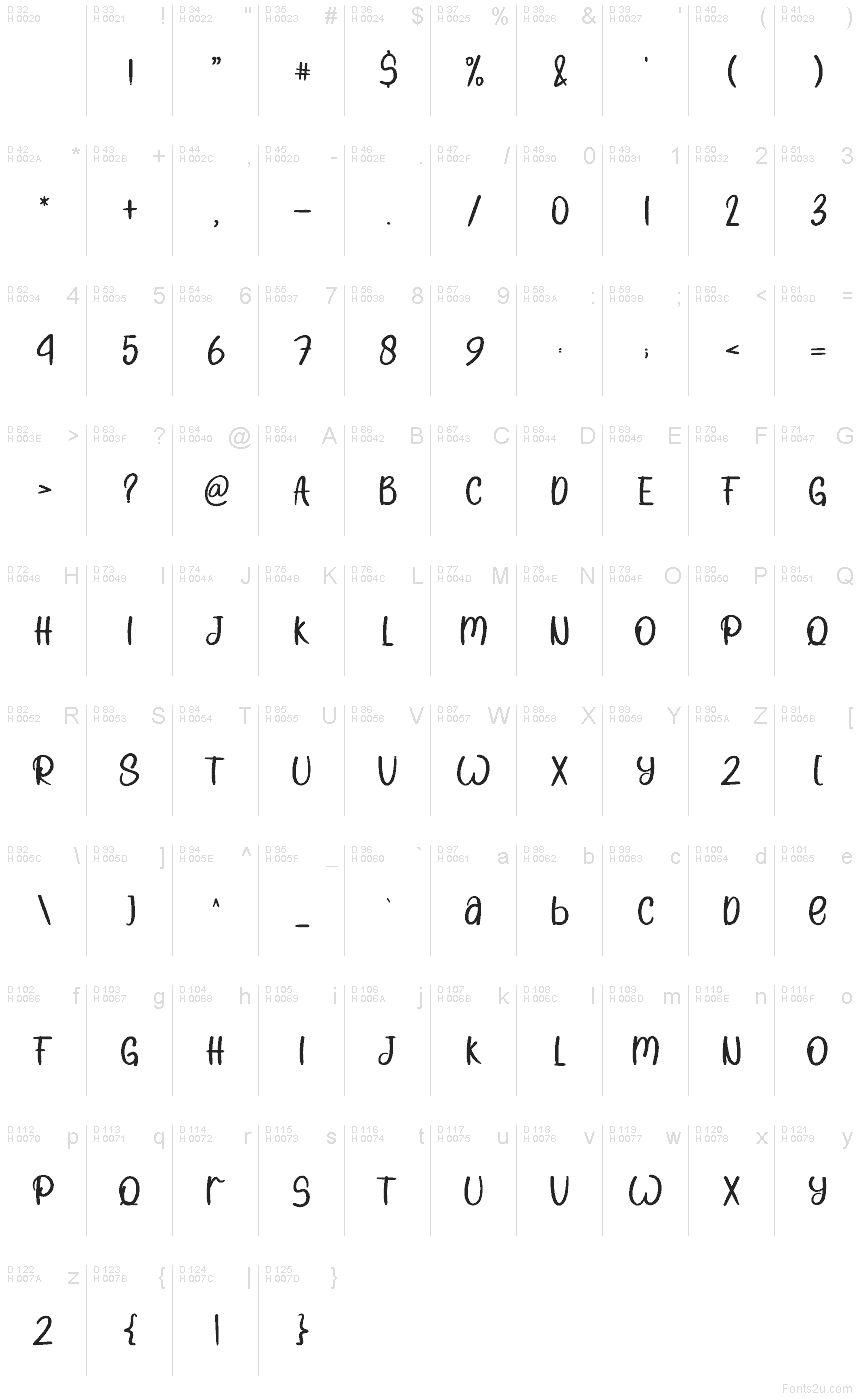
Simple Home
Simple Home, designed by Etik Fatimah, is a semi-light handwritten font that exudes a natural and effortless charm. With its casual yet elegant aesthetic, it strikes a balance between readable simplicity and artistic flair. Each stroke in Simple Home suggests a personal touch, reminiscent of a quick note from a dear friend or an inscription in a cherished book.
This font's semi-light weight lends it an airy quality that makes it not only pleasing to the eye but also versatile for various creative endeavors. From heartfelt invitations to boutique branding or personalized stationery, Simple Home has the potential to add a warm and inviting feel to your projects.
Embrace the understated beauty of Simple Home for designs that require both sophistication and approachability.